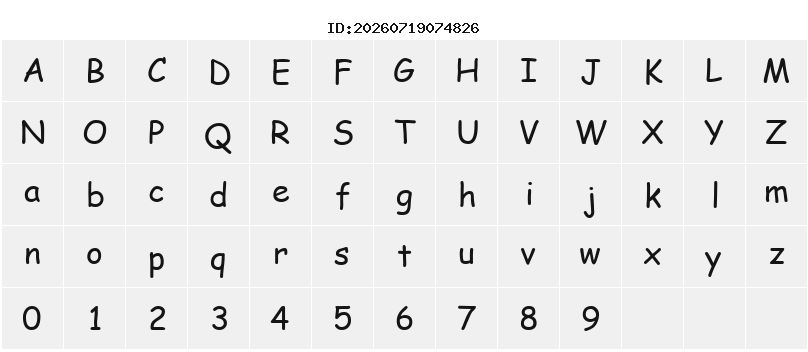
• Font Name: Comic Sans MS
• Full Font Name: Comic Sans MS
• Designer: Vincent Connare
• Manufacturer: Microsoft Corp.
• Description: Designed by Microsoft's Vincent Connare, this is a face based on the lettering from comic magazines. This casual but legible face has proved very popular with a wide variety of people.
About Comic Sans MS.ttf
Comic Sans MS.ttf is a modern, elegant sans-serif font designed for ultimate readability and visual harmony. Perfect for branding, headlines, web design, and print materials.